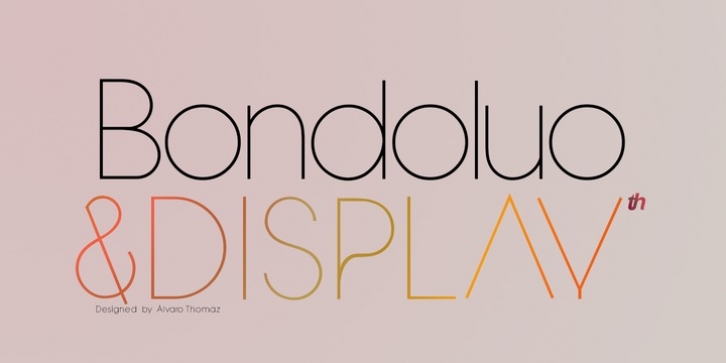
Bondoluo was designed by Ãlvaro Thomáz and published by Ãlvaro Thomáz Fonts. Bondoluo contains 2 styles and family package options.
Bondoluo is a geometric font family developed by Ãlvaro Thomáz in 2012, The creation process was inspired by 3 geometric forms - triangle, circles and squares - and 2 amazing fonts - Futura® and URW Gothic. The Bondoluo Display font was inspired by Diamonds by HVD.